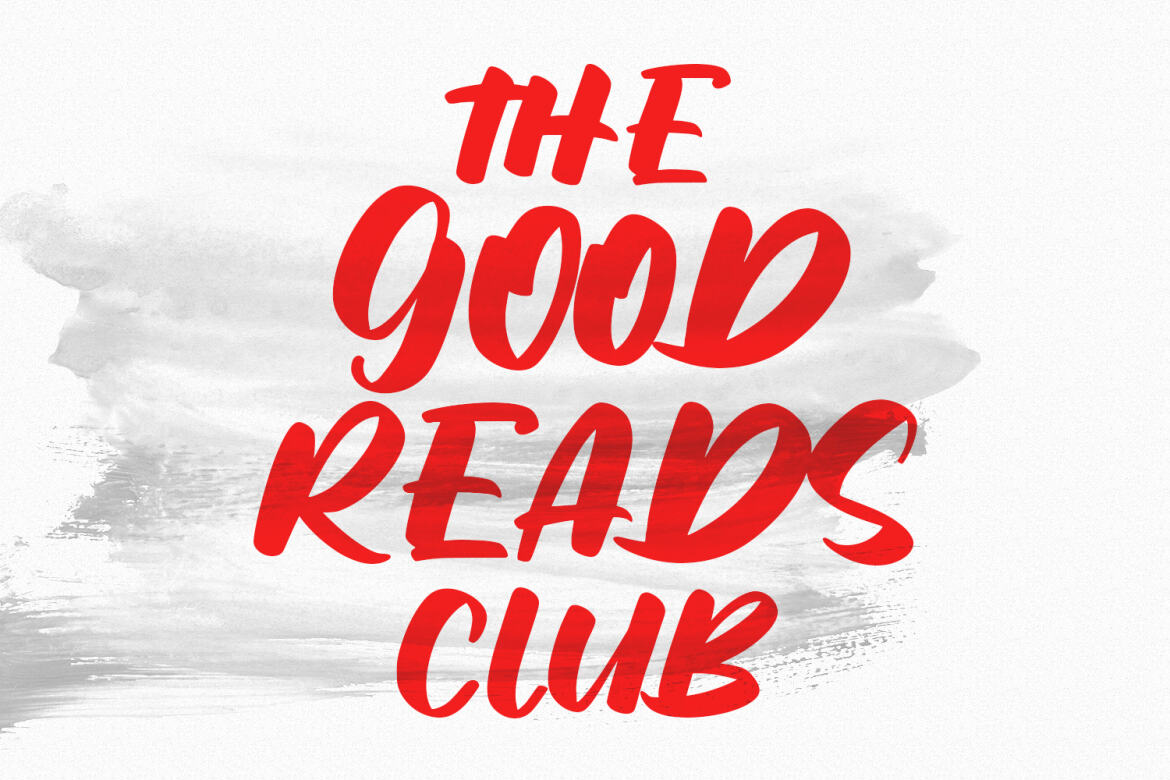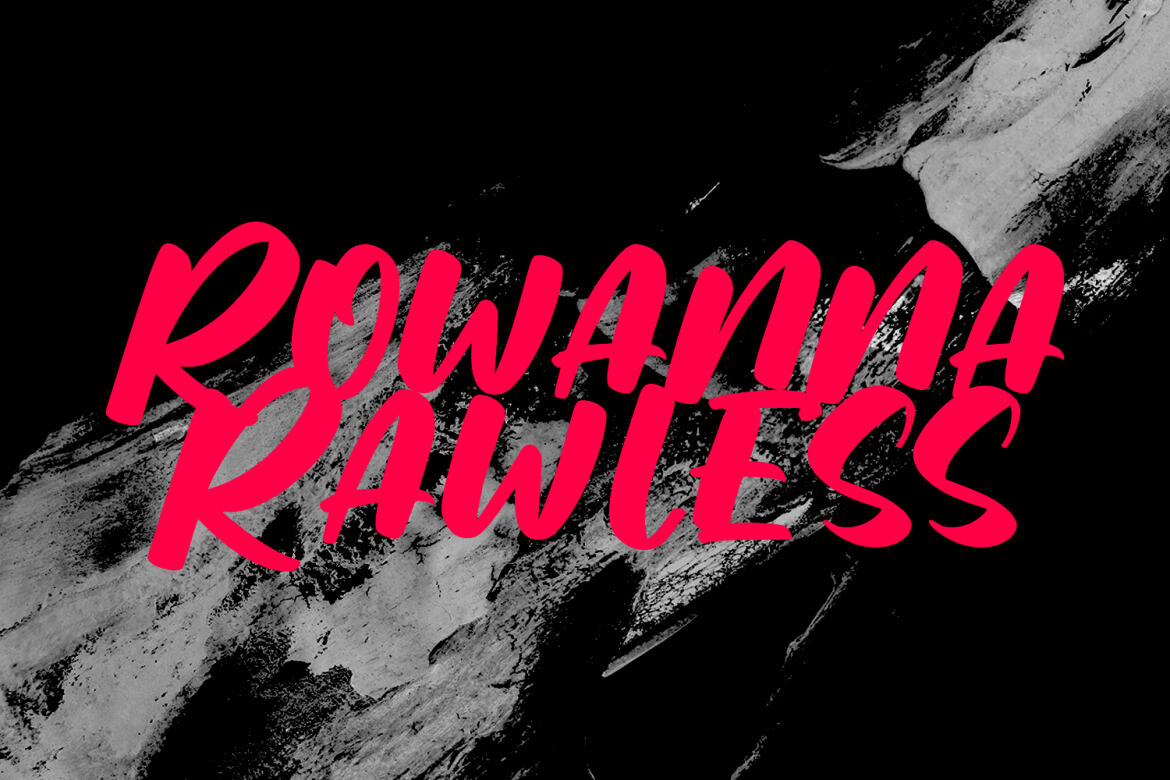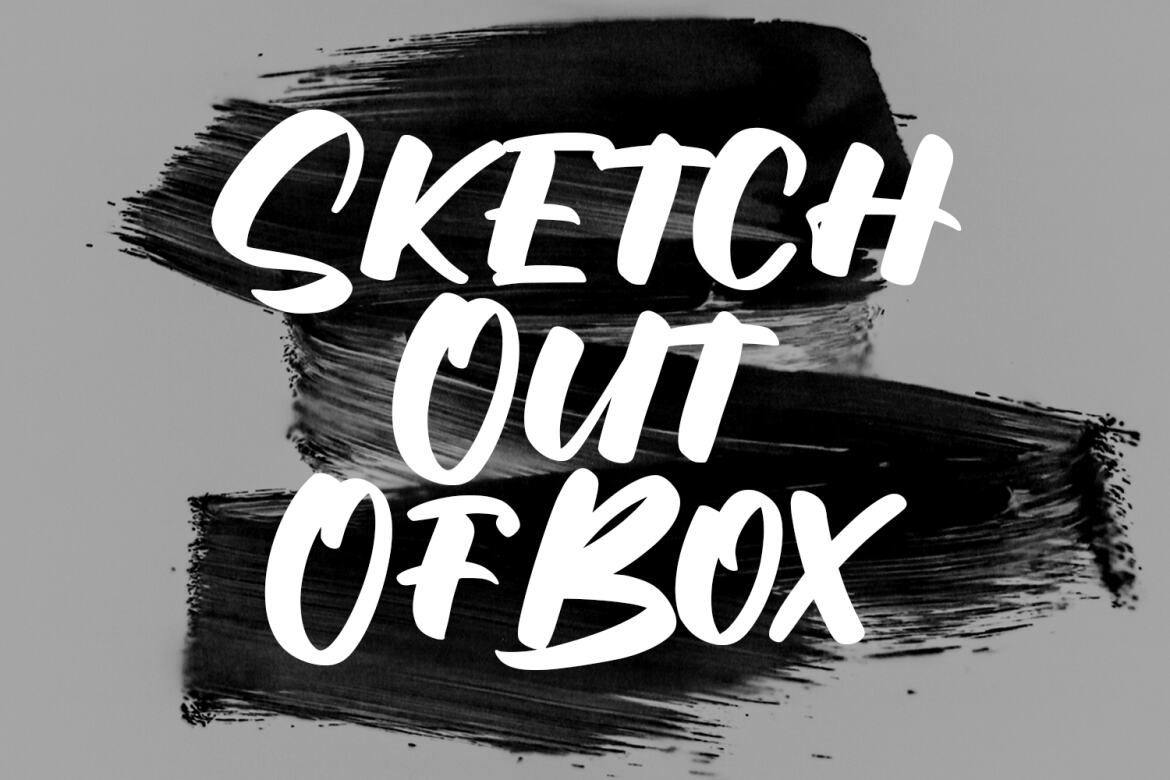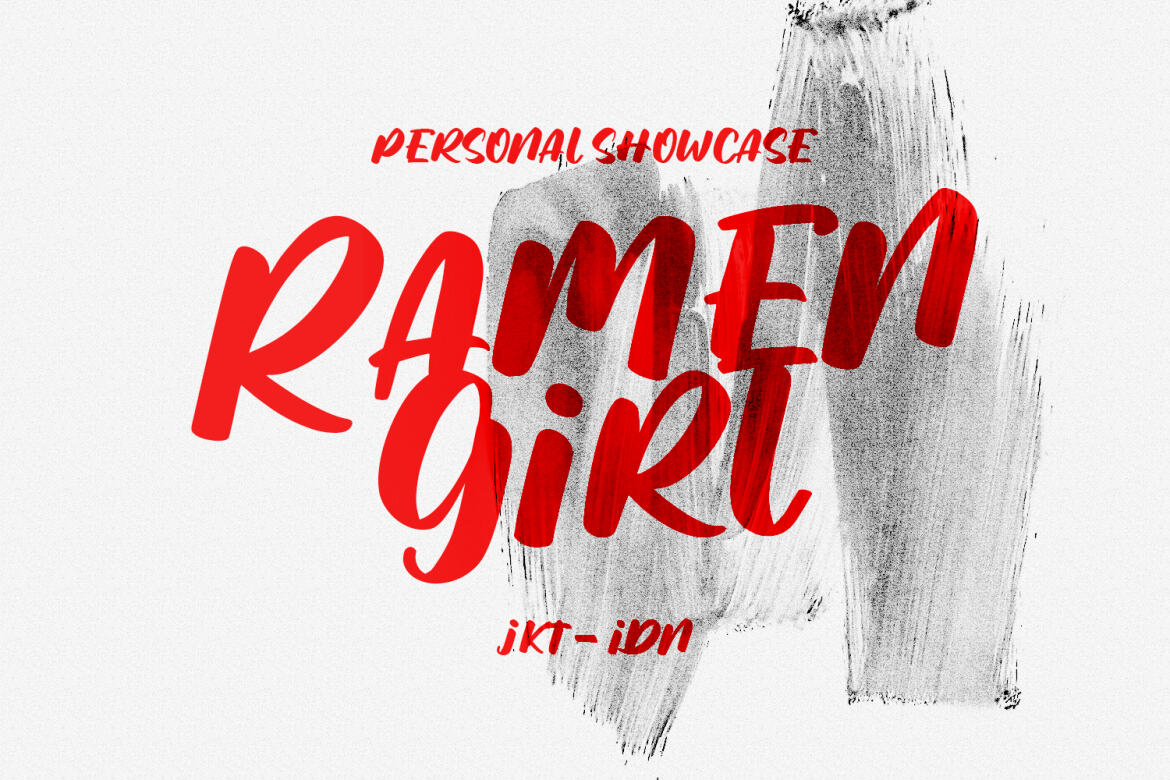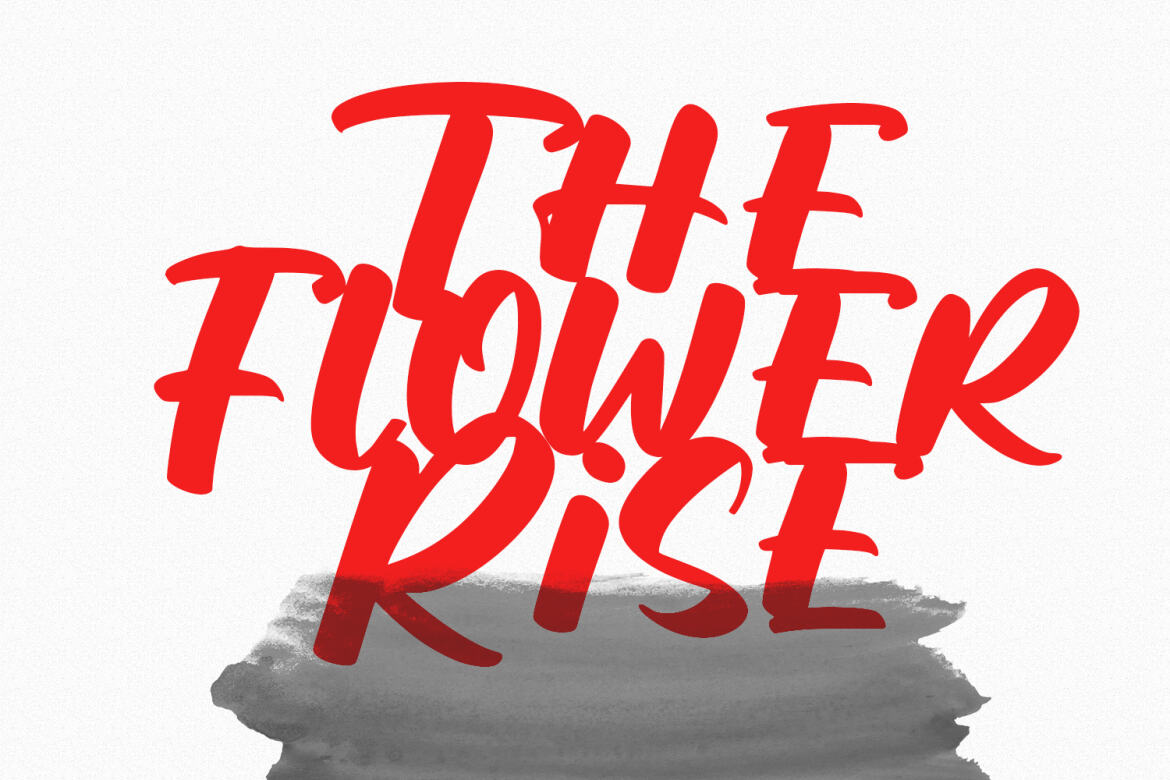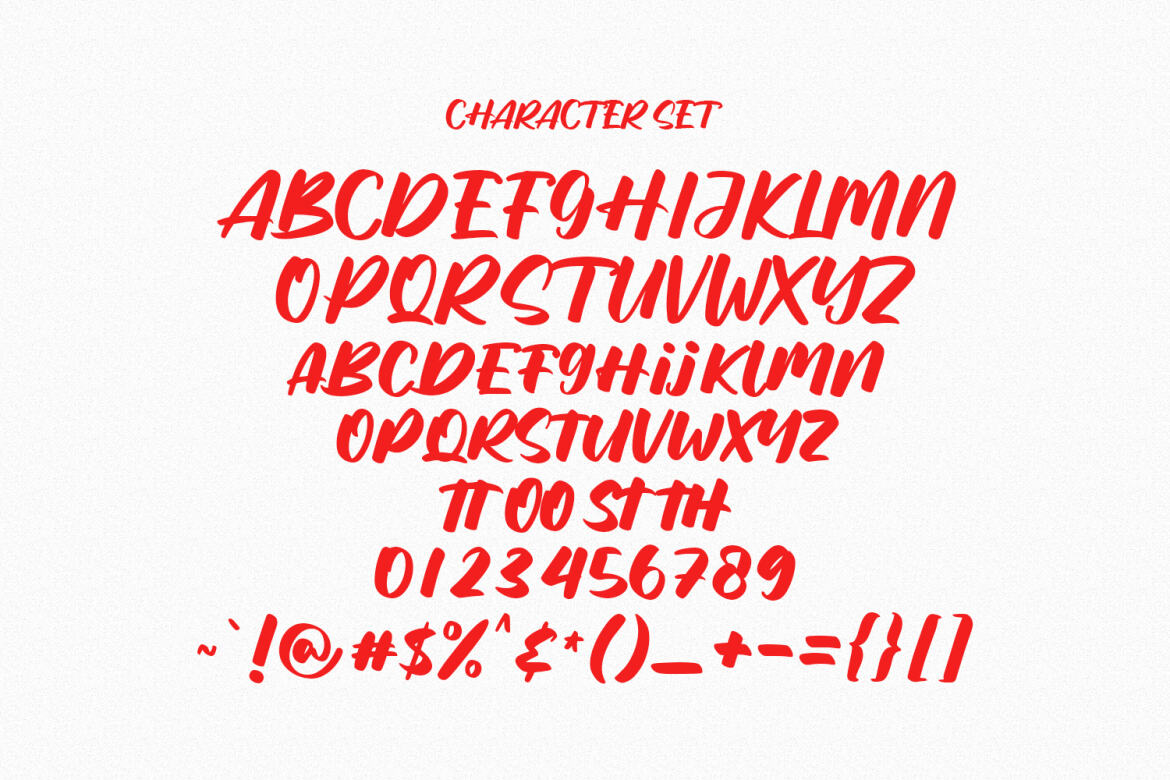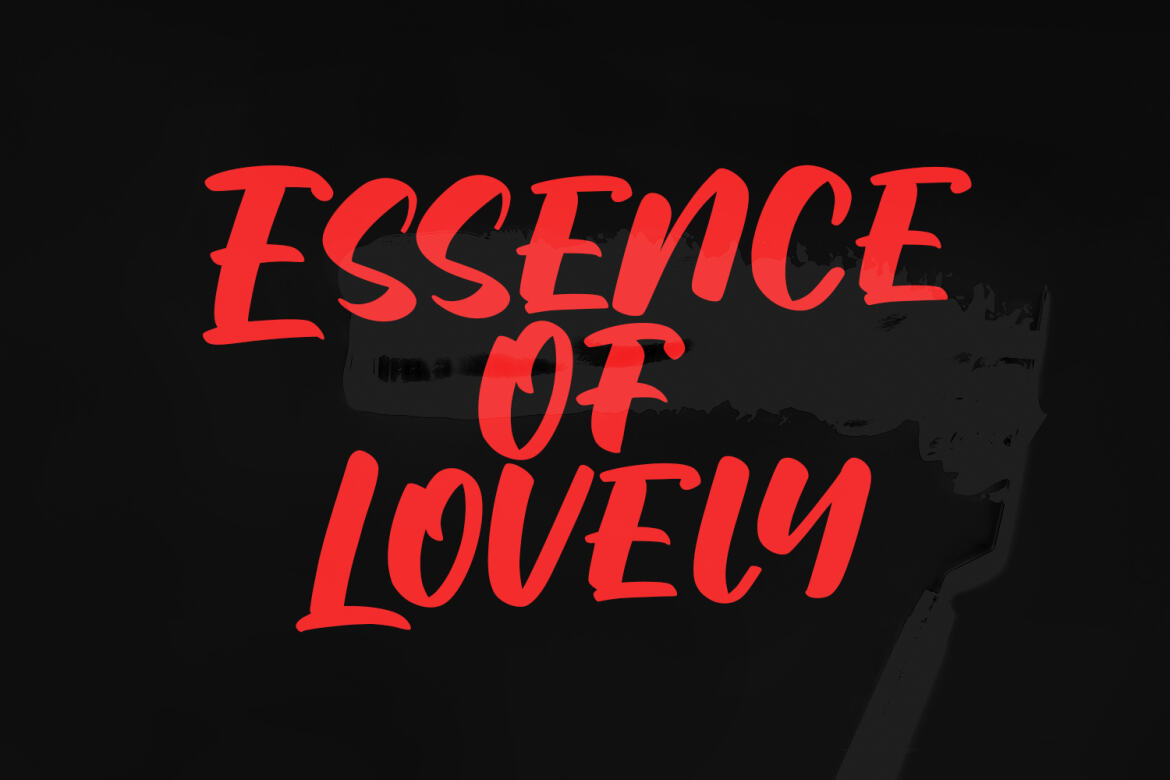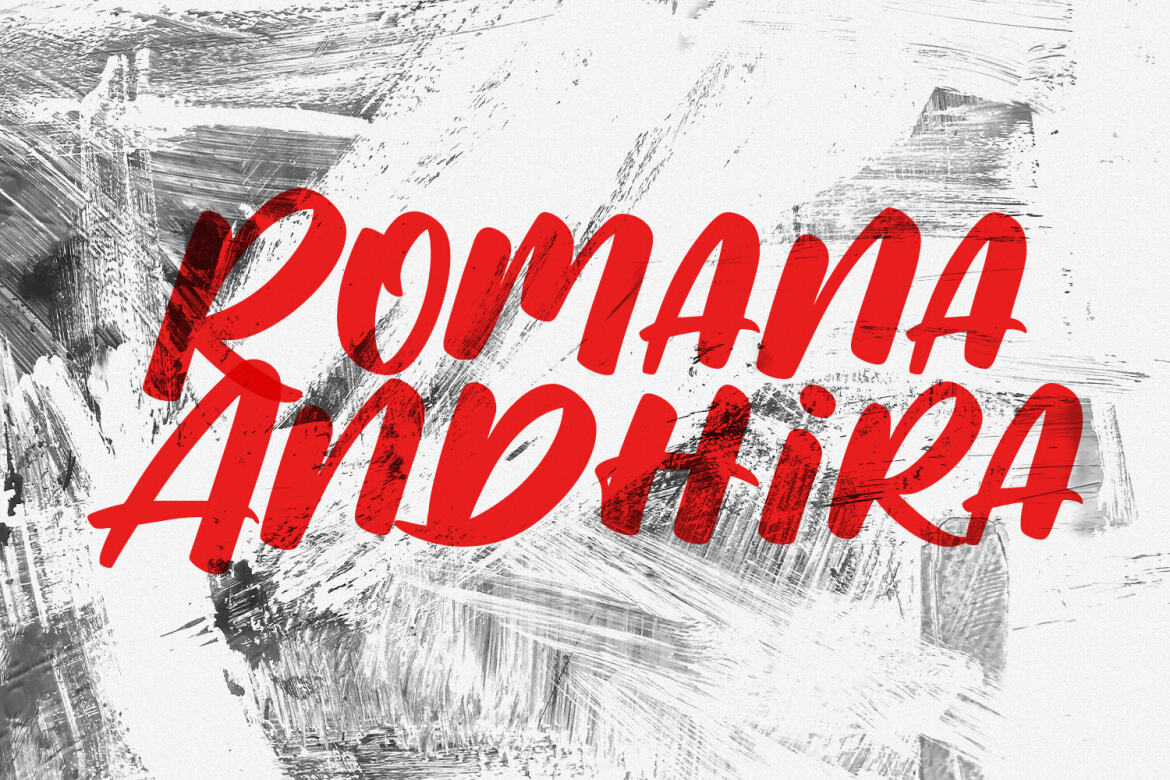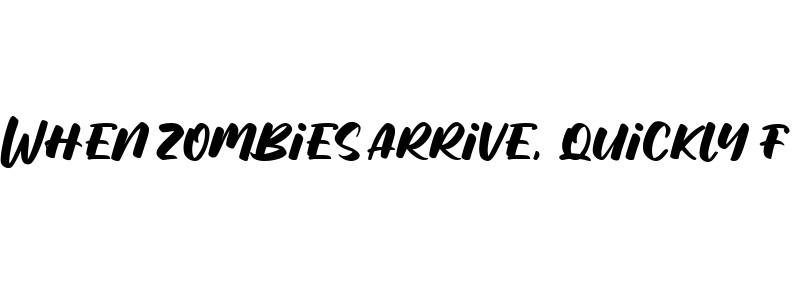
Writes Sketh FREE Handwritten Font
Writes Sketh
Writes Sketh is an expressive handwritten display font. With bold stroke, fun character with a bit of ligatures and alternates. To give you an extra creative work. Writes Sketh font support multilingual more than 100+ language. This font is good for logo design, Social media, Movie Titles, Books Titles, a short text even a long text letter and good for your secondary text font with sans or serif. Make a stunning work with Writes Sketh font.